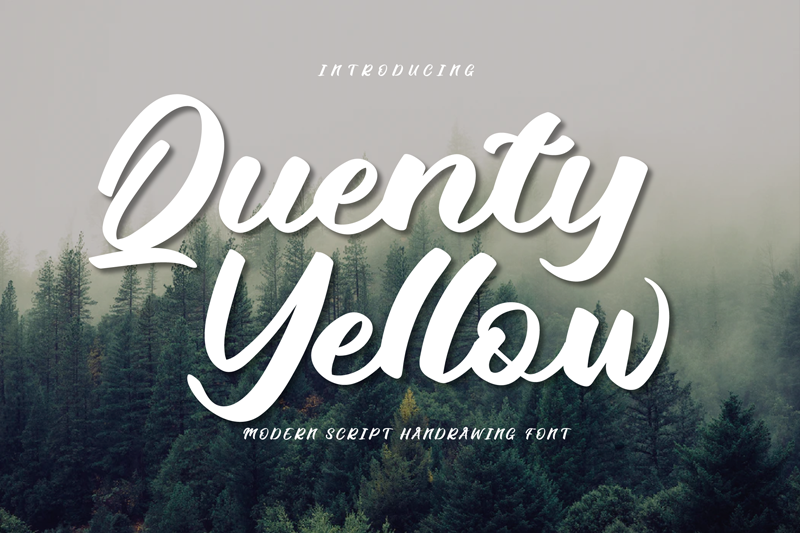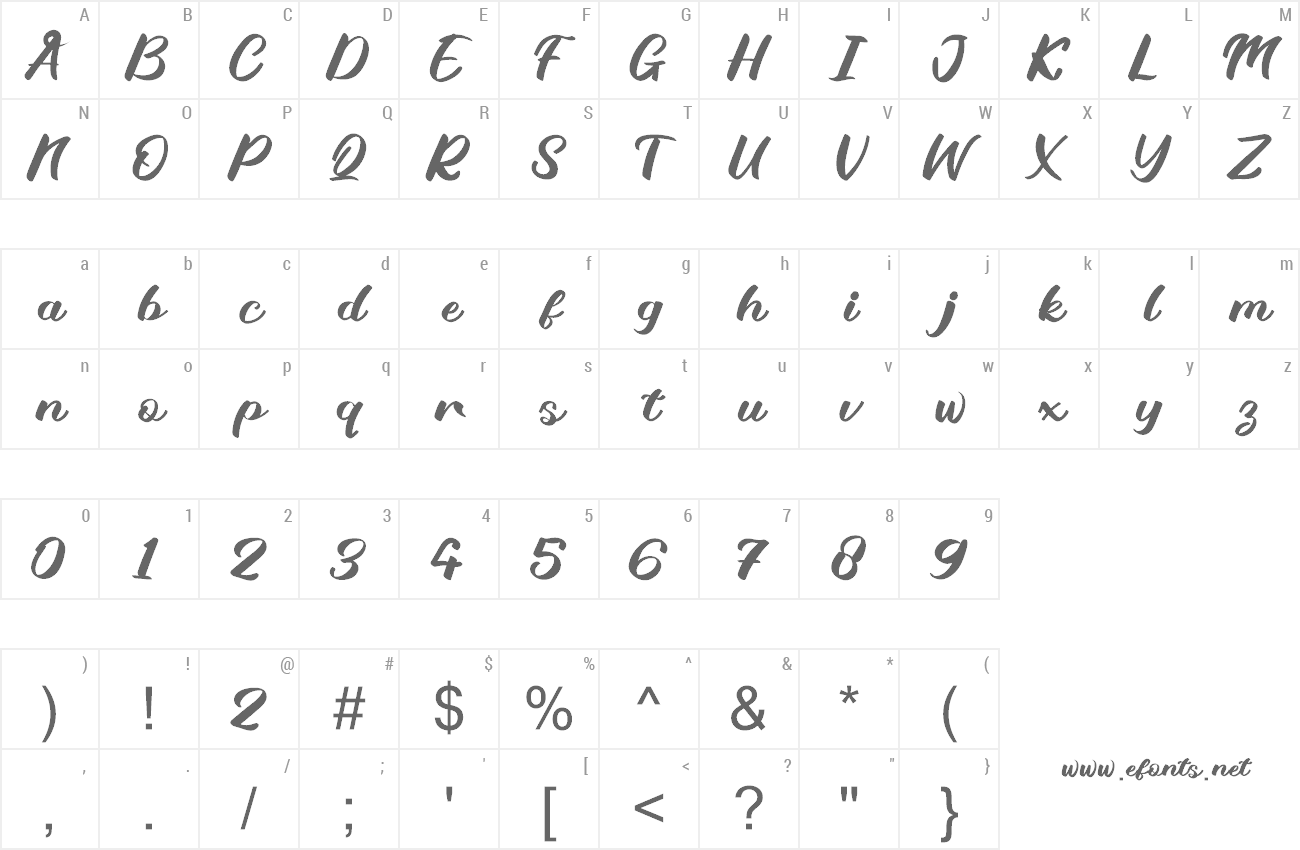
Introduce my font, this font is a script font that is connected with clear style and dramatic movements. This font comes with uppercase letters, lowercase letters, numbers, punctuation marks, and so many variations on each character including alternating opentypes, common binders and additions to make you customize your design. Perfect to use for Logotype, Letterhead, Posters, Clothing Designs, Labels and all designs that require handwriting Also supported is the encrypted PUA. let's start using this font for your creative projects now! This font is best suited for open type friendly applications. How to get alternative glyph access from open type fonts: http://adobe.ly/1m1fn4Y Coded PUA Characters - Fully accessible without additional design software. we hope you enjoy this font. If you have questions, feel free to send me a message Thank you Regards Twinletter For special offer commercial use licence please drop me EMAIL: twindsign@gmail.com WhatsApp: +6285712407044 Follow me on: http://tiny.cc/nazimz |